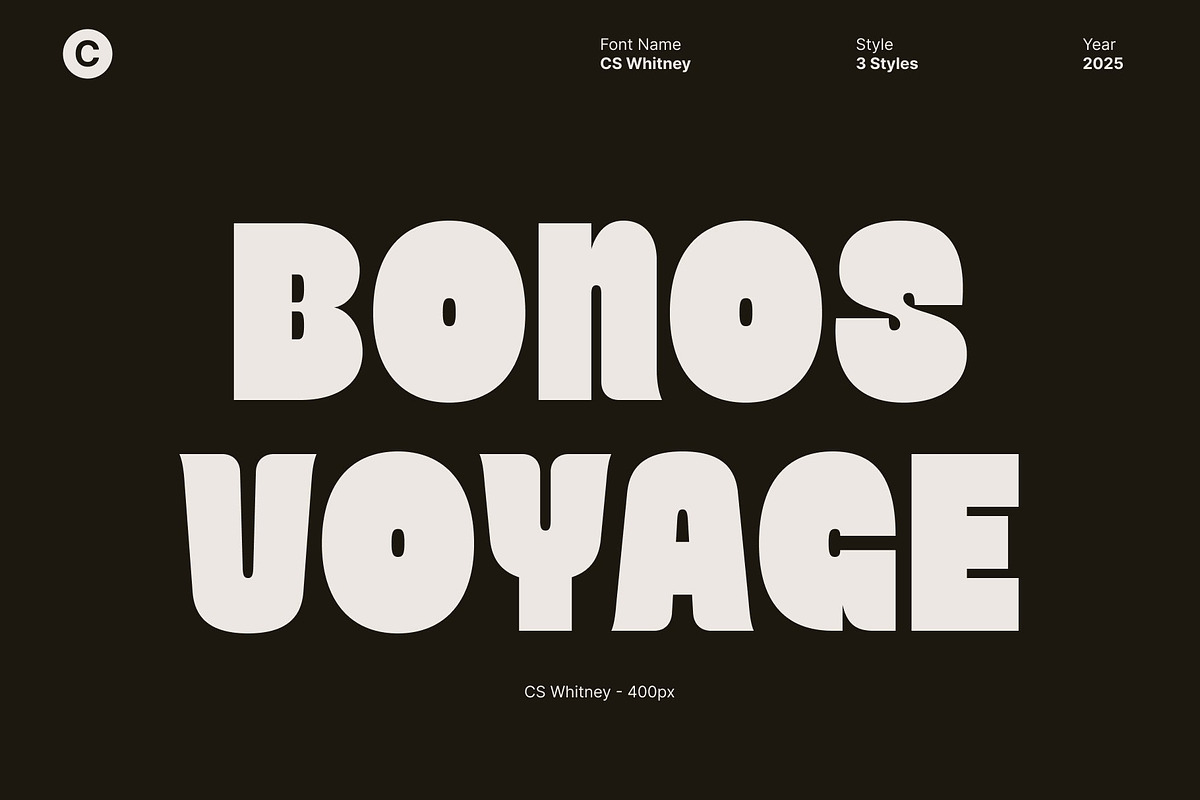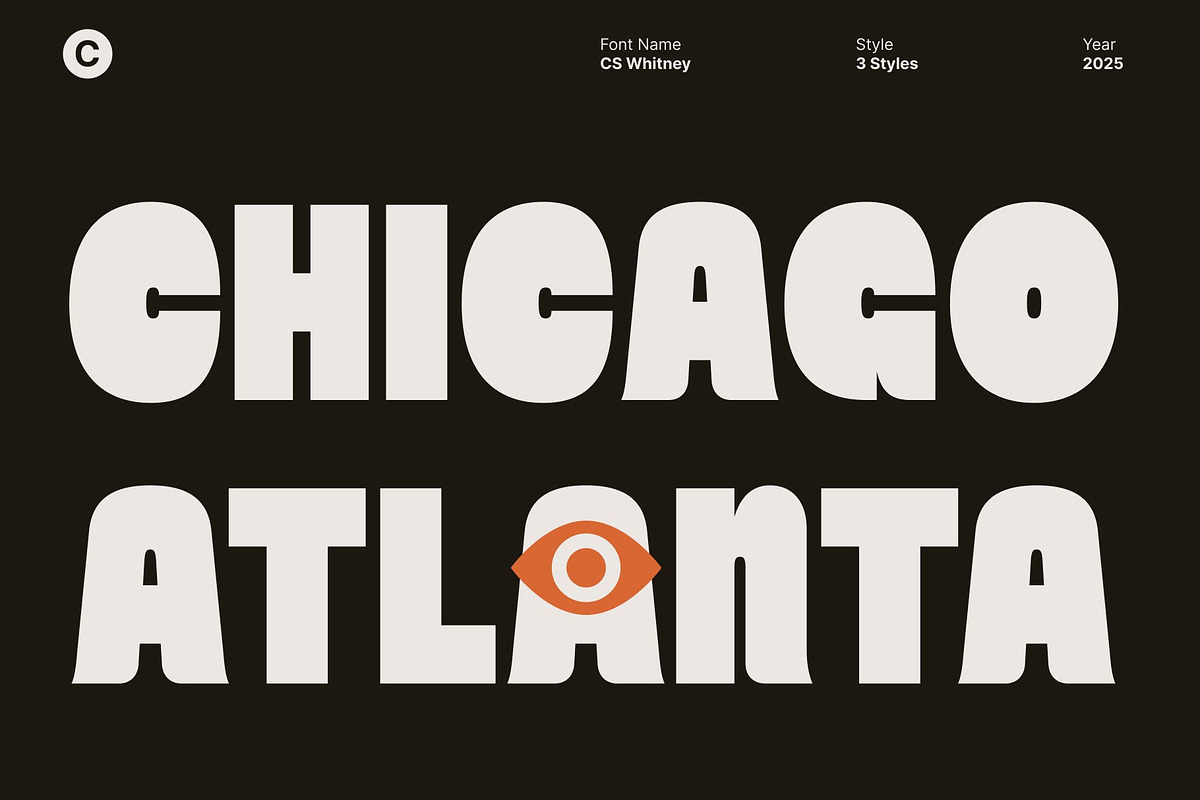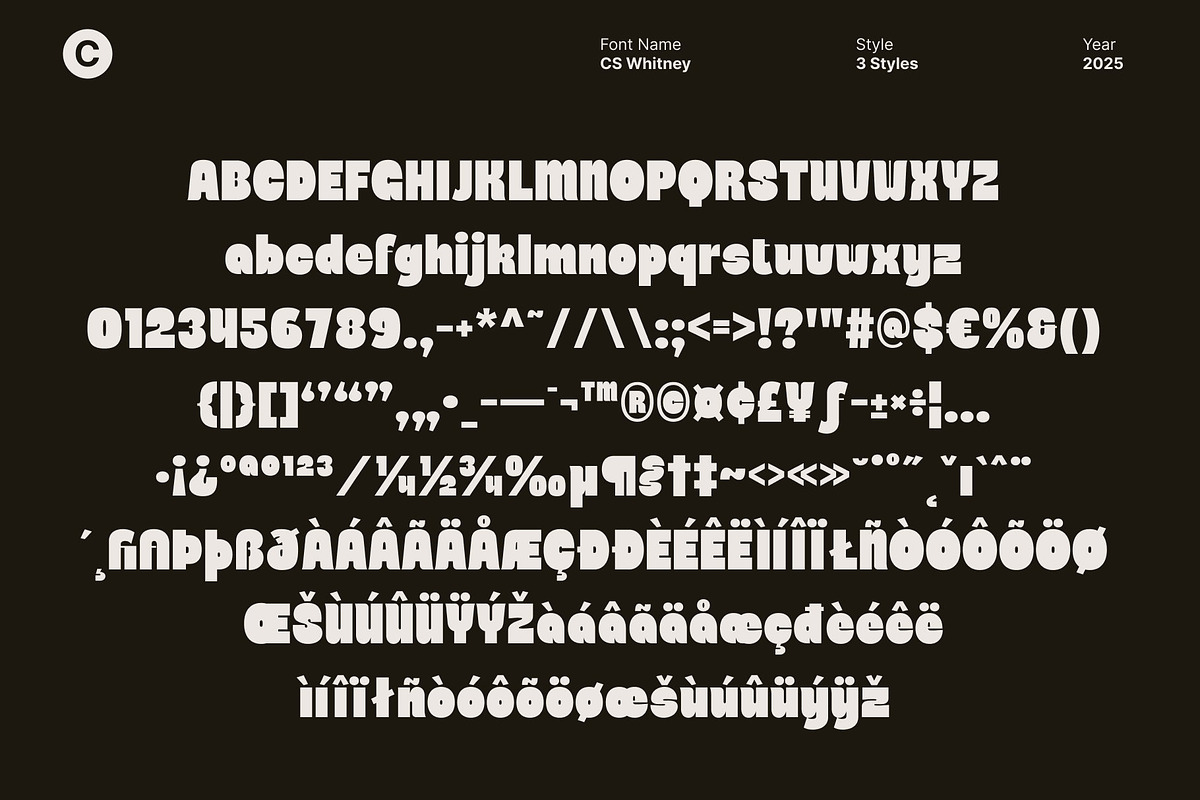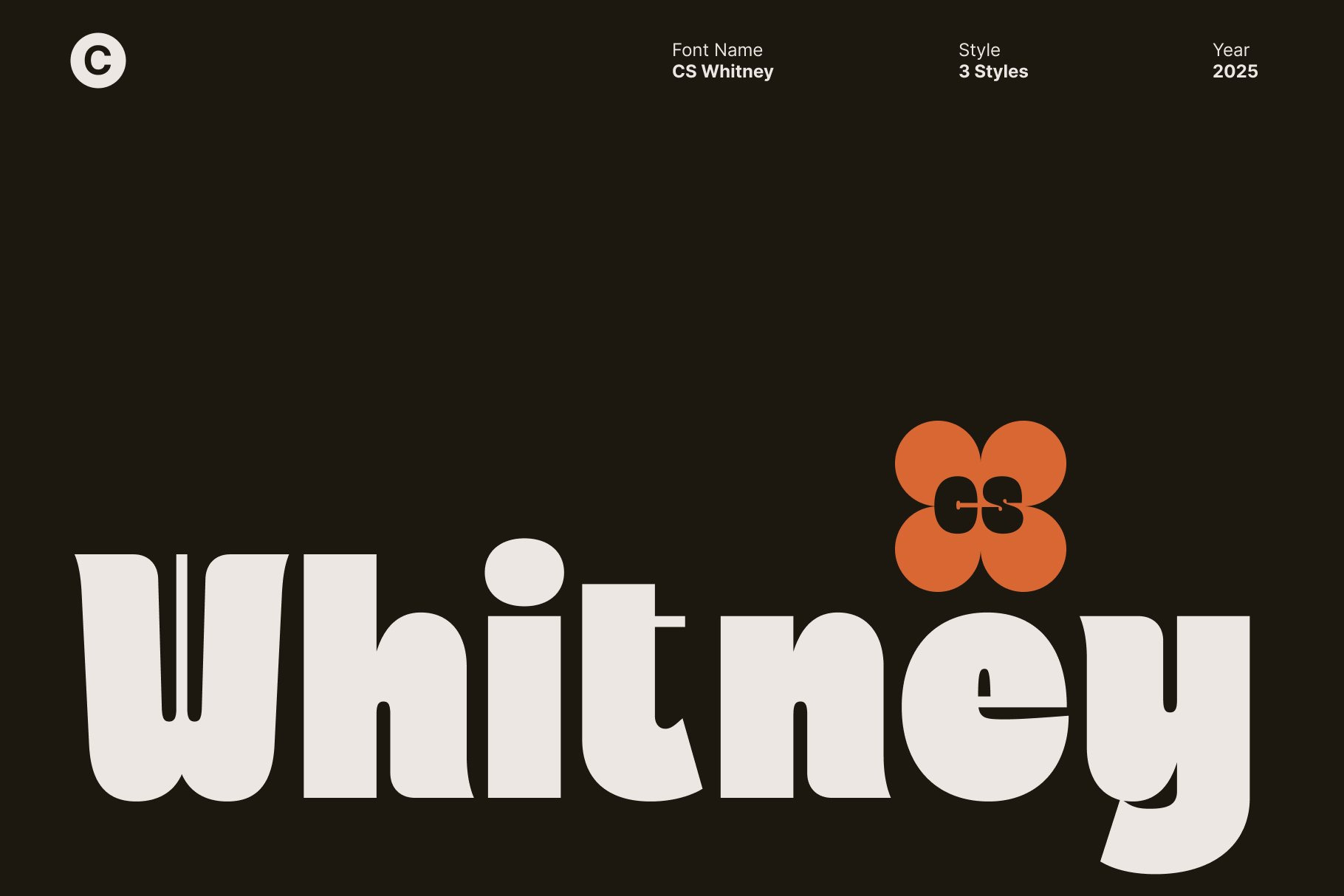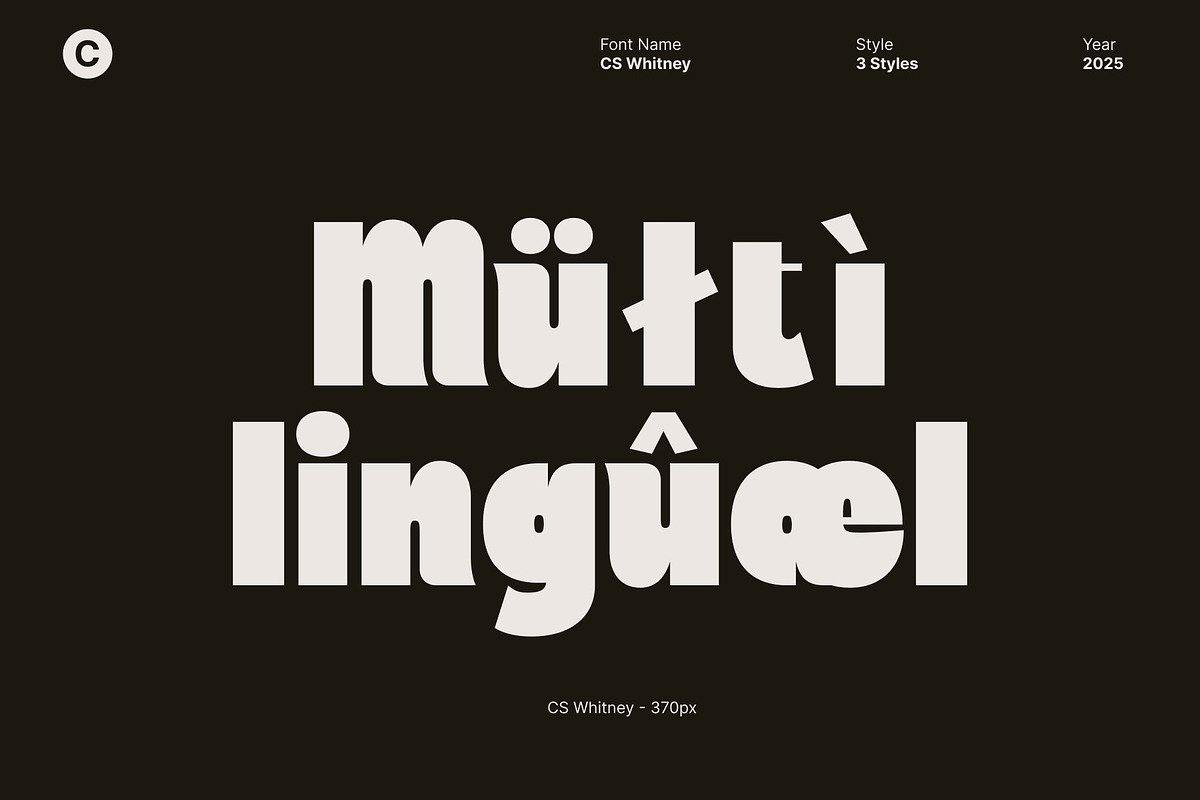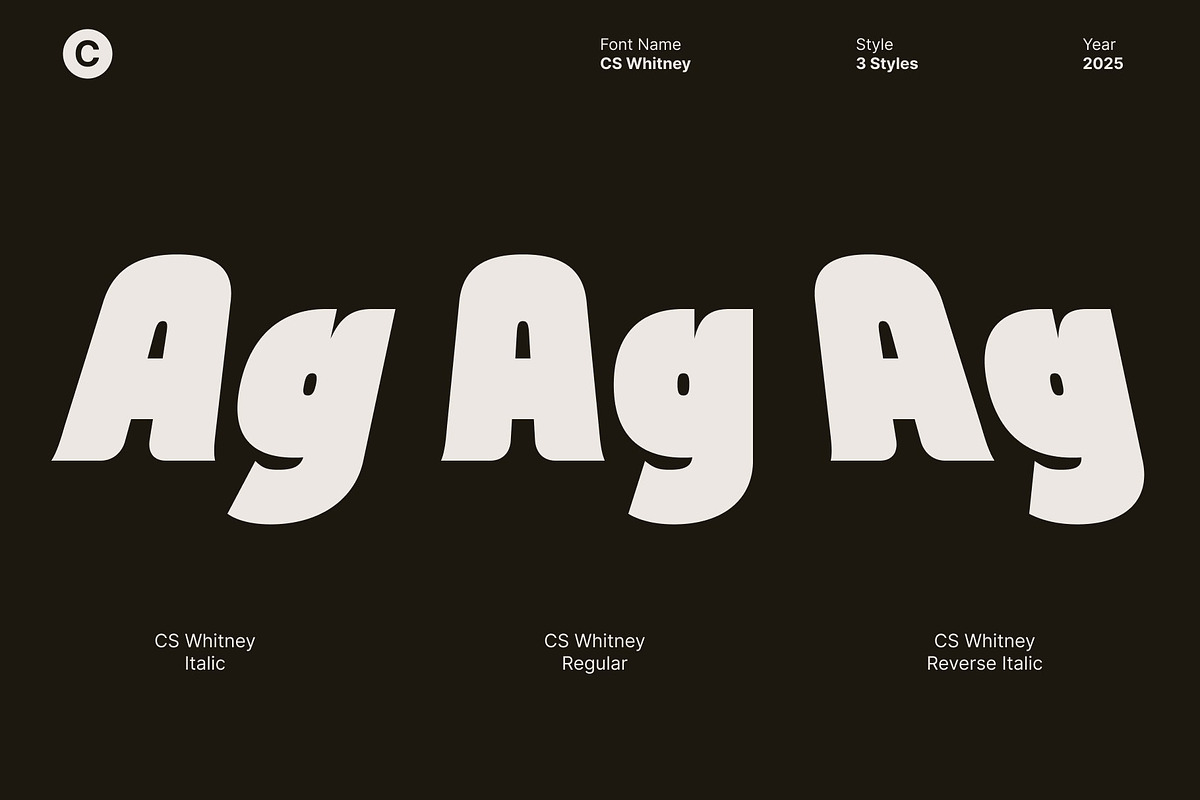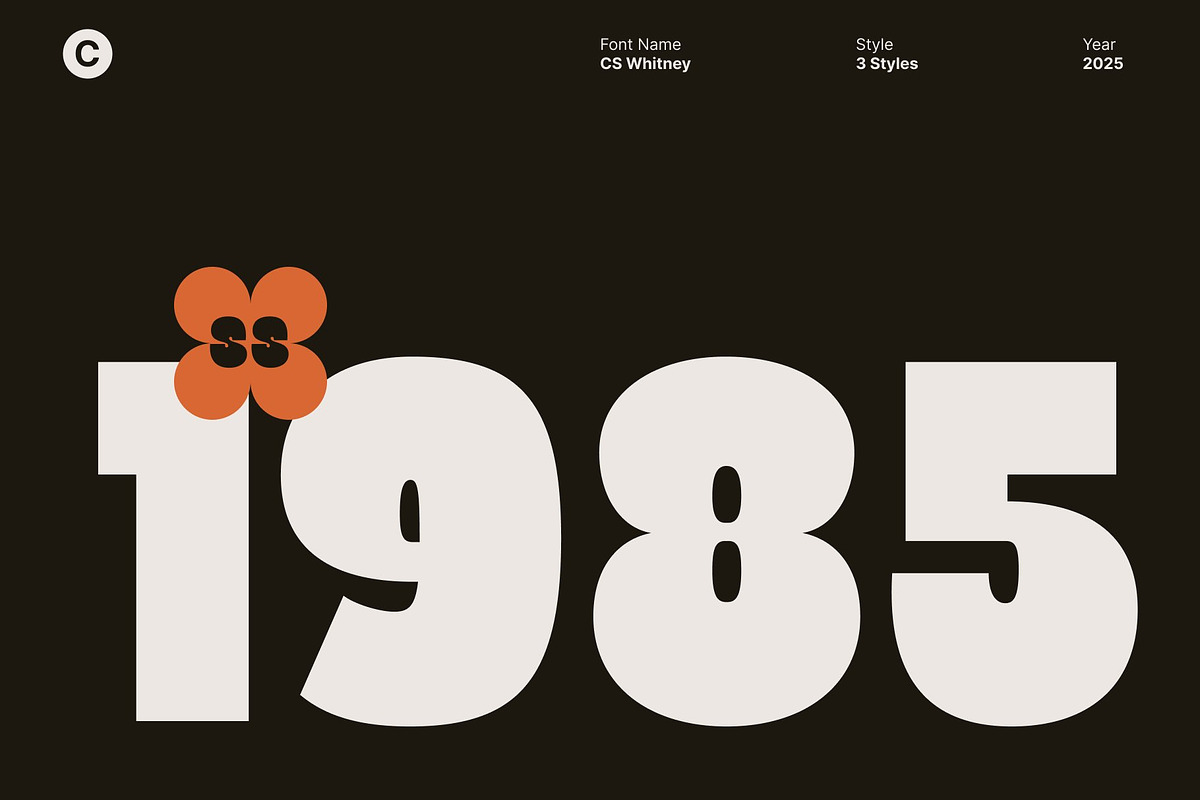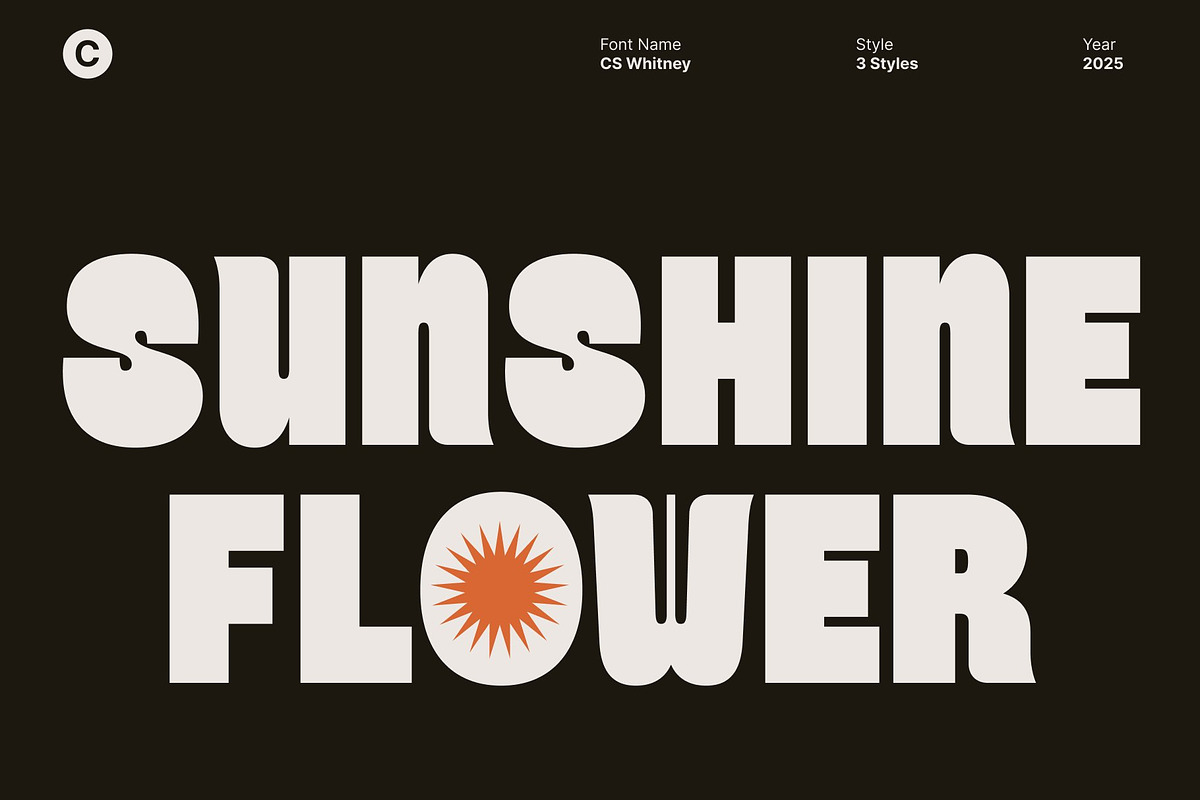
CS Whitney – Chunky Display Font
CS Whitney – Bold Impact Meets Playful Charm
Chunky Display Sans Serif This is a bold, chunky display font full of personality. Its strong, blocky letterforms convey confidence and modernity, while quirky details introduce playful charm, making every design instantly eye-catching and memorable.
Thick Strokes for Maximum Presence With thick strokes and clean lines, this font commands attention in headlines, posters, and product packaging. Its substantial weight ensures designs stand out in both print and digital formats, delivering bold impact without sacrificing style.
Playful Details for Creative Expression Subtle, quirky elements in each character add a layer of fun and creativity, giving your designs a unique voice. Perfect for branding, social media graphics, or promotional materials, this font balances boldness with personality seamlessly.
Versatile and Dynamic Usage This font adapts effortlessly to a wide range of projects, from energetic youth campaigns to sophisticated modern branding. Its combination of bold forms and playful charm makes it a versatile tool for any creative professional aiming to make a statement.’